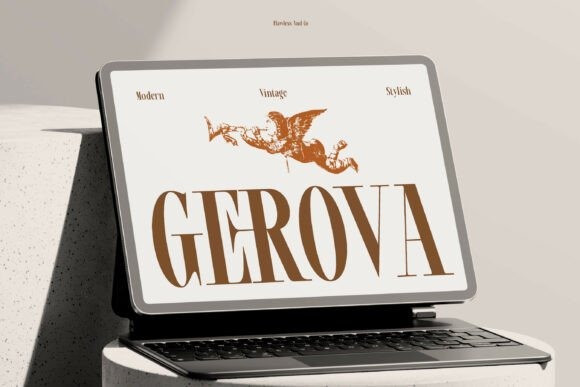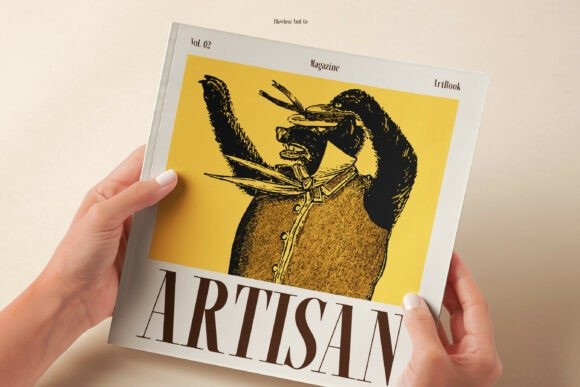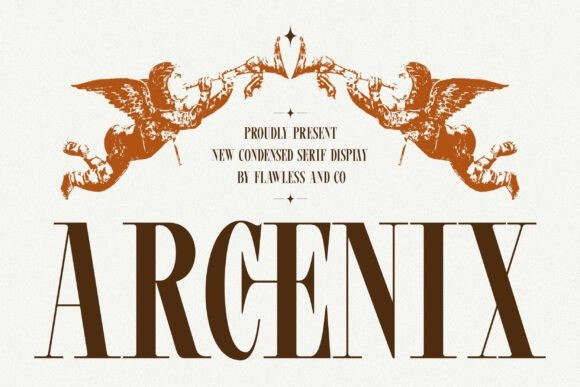
Arcenix Font
Arcenix Font is a modern condensed serif display typeface designed to deliver elegance with a strong and commanding presence. Featuring tall, narrow letterforms combined with refined serif details, Arcenix creates a sophisticated look while maximizing space efficiency. Its condensed structure makes it perfect for impactful headlines without sacrificing readability or style. With a blend of classic serif charm and contemporary design, Arcenix brings a distinctive and polished feel to any project.